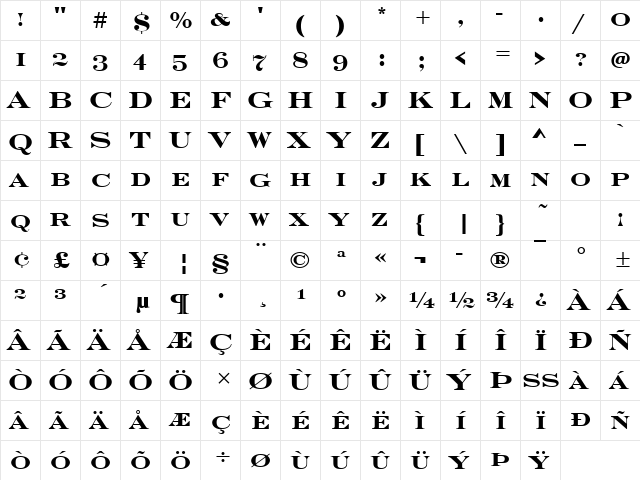
Engravers Becker Caps Bold
Design Context for Engravers Becker Caps Typeface
Engravers Becker Caps is a composed and adaptable typeface that performs quietly and consistently across a wide range of design contexts. Its bold stroke weight gives it real presence on the page.